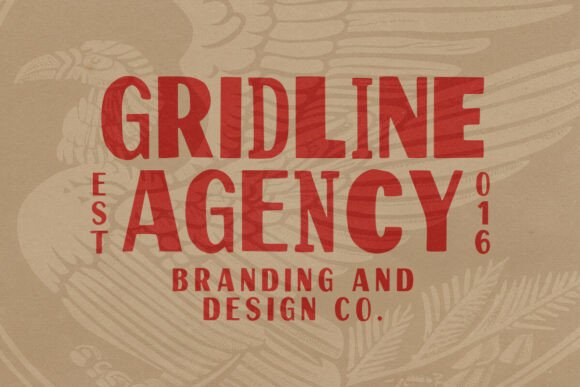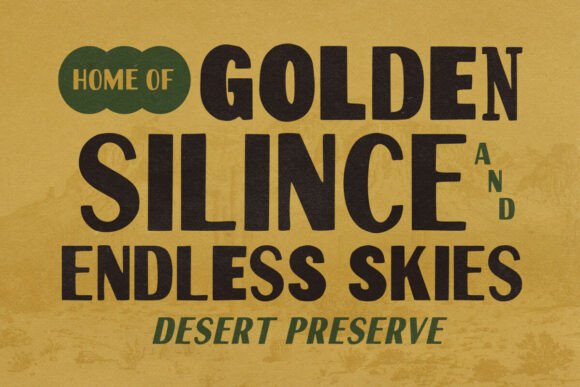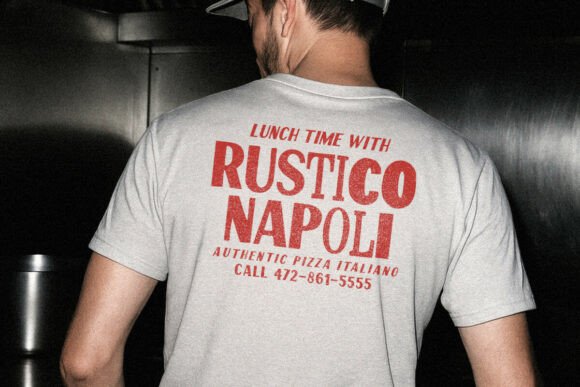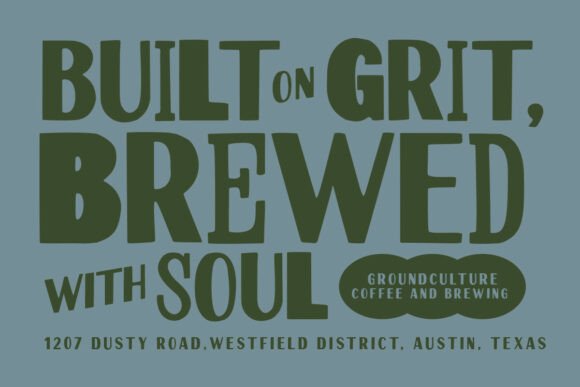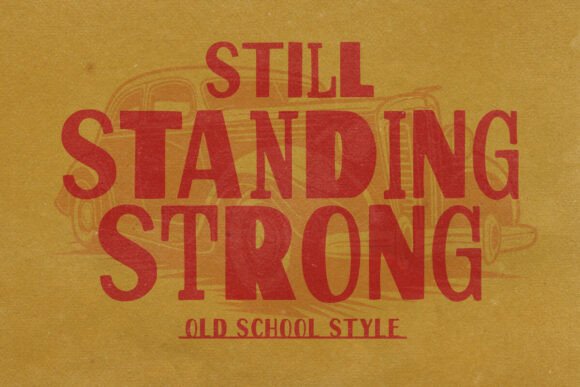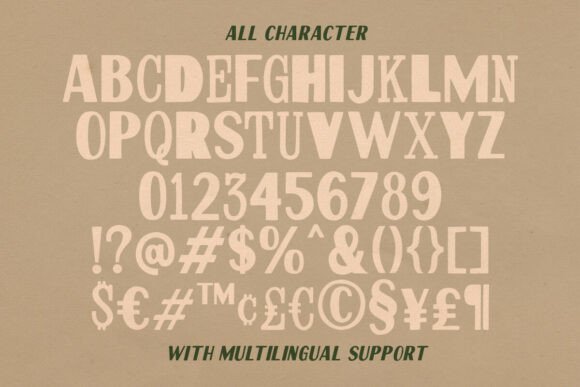
Introduction to Rustic Changer Font
Rustic Changer (Display Font with Two Styles) Infuse your creative projects with a sense of rugged charm and artisanal craft using the Rustic Changer font.
This versatile Rustic Changer typeface by Letterhend Studio comes in two distinct styles—Regular and Italic—giving you the flexibility to pivot between a grounded, stable aesthetic and a more dynamic, active feel Designed with a hand-drawn, blocky structure, the Rustic Changer font captures the nostalgic essence of vintage outdoor signage and heritage branding.